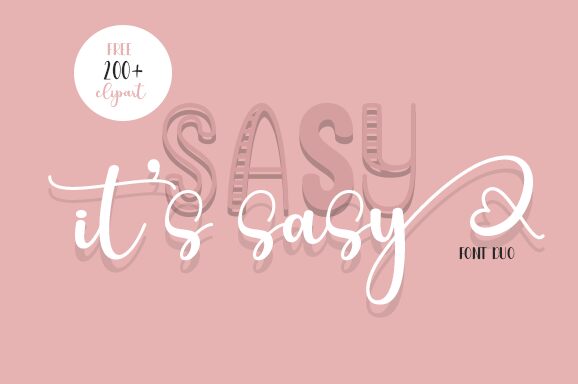
Introducing Its Sasy, a beautiful font designed by Nopianti. With its delicate calligraphic style, this light font adds an elegant and romantic feel to any project. Its Sasy is perfect for wedding invitations, love letters, and other creative projects where you want to convey a special emotion. Let Its Sasy bring your designs to life!
Its Sasy
Nopianti